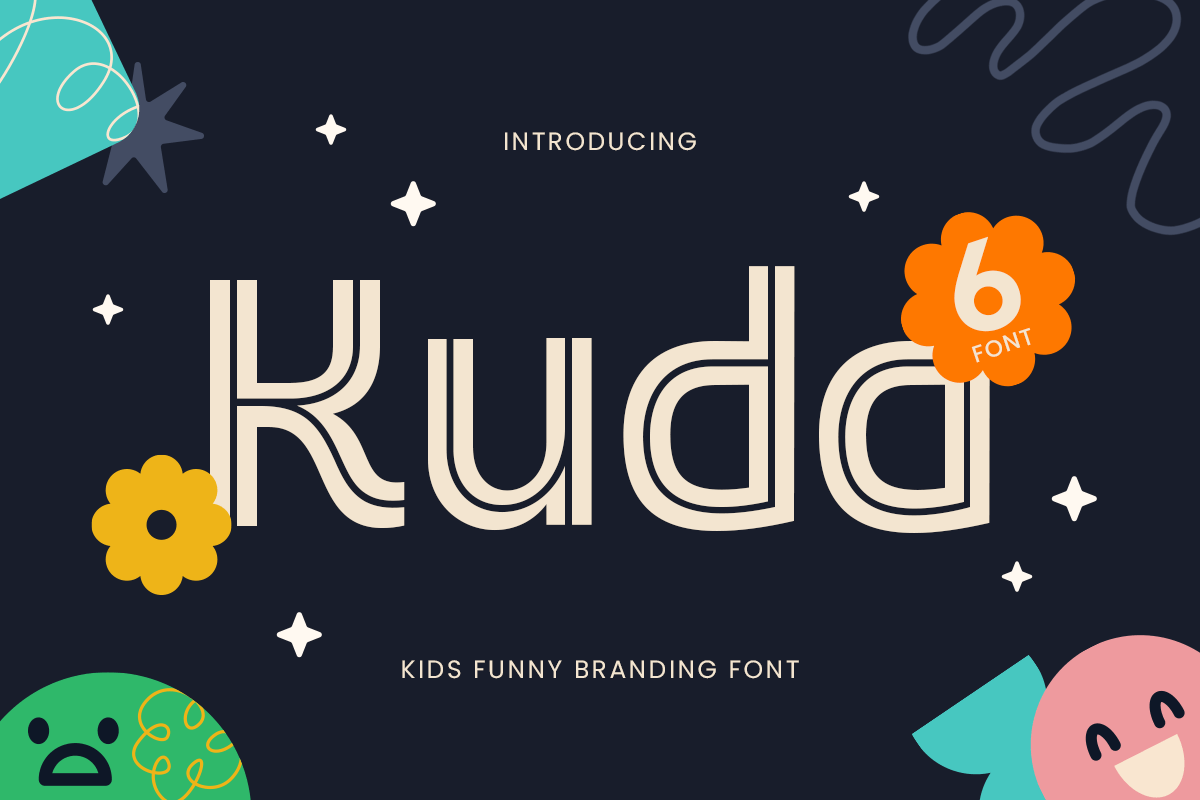
Kuda
-Kids Funny Branding Font
Kuda - Kids Funny Branding Font
Kuda is a kids-friendly funny font created to spark joy and imagination in every design. With its bouncy shapes, rounded edges, and cheerful energy, Kuda font is perfect for children’s branding, book covers, toys, packaging, and educational materials.
The playful letterforms make text easy to read while keeping it fun and full of personality. It’s designed to appeal to young audiences and the young at heart, offering a delightful tone for both digital and print design.
Bring smiles to your next project with Kuda—the font that turns words into play.
Kuda – Kids Funny Branding Font Features
• Fun and playful character design
• Totally has ready with 6 Font Styles
• Ideal for kids branding, books, toys, and packaging
Turn your project into a playground of creativity with Kuda—where every letter is a giggle.